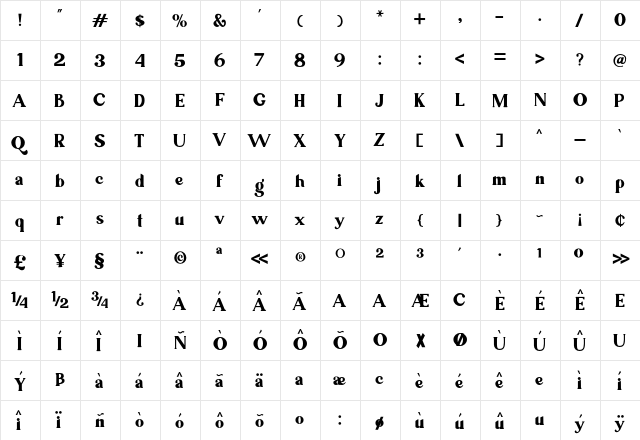
Ragila Regular
| Foundry | Vultype Co |
| Designer | Vultype Co |
Design Context for Ragila Typeface
Ragila offers clean, dependable letterforms without strong stylistic allegiance, making it a practical choice for designers who need flexibility.